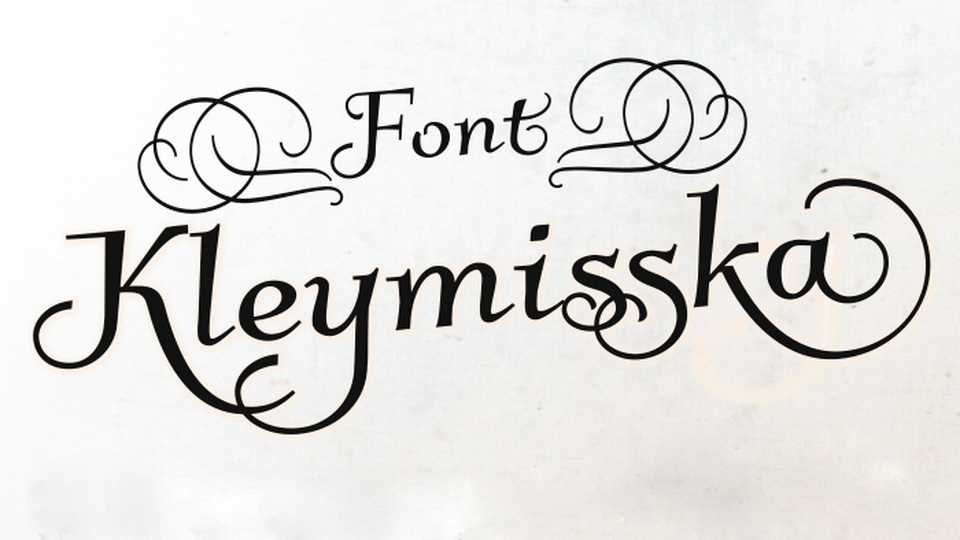
Download Kleymisska font, a cursive, decorative script with contextual alternates, ligatures, initial and terminal forms. Font is newer, bold version of font Kleymissky typeface.
Designer: Grzegorz Luk